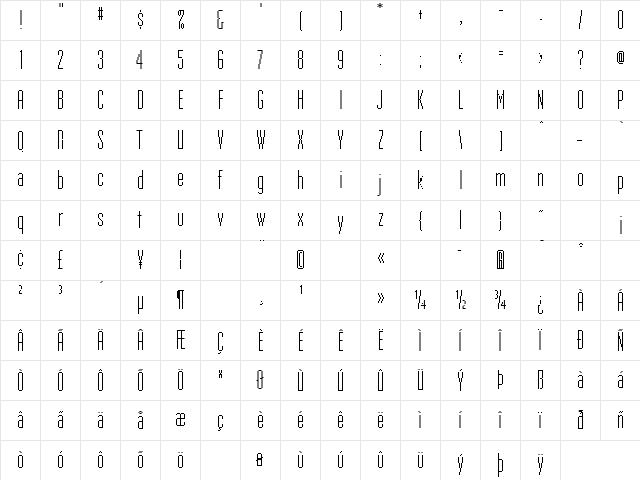
UniversalNineteen Regular Font Preview
UniversalNineteen Regular
UniversalNineteen Regular Font Details
Design Context for UniversalNineteen Typeface
UniversalNineteen offers clean, dependable letterforms without strong stylistic allegiance, making it a practical choice for designers who need flexibility.